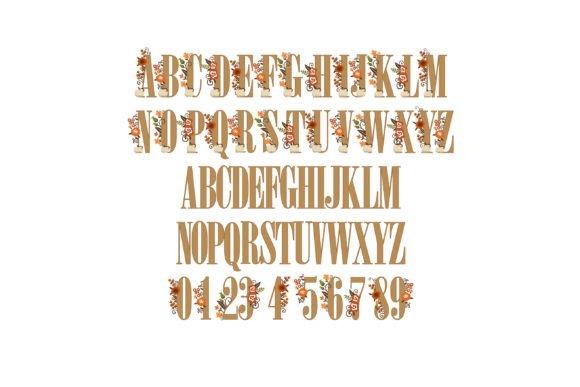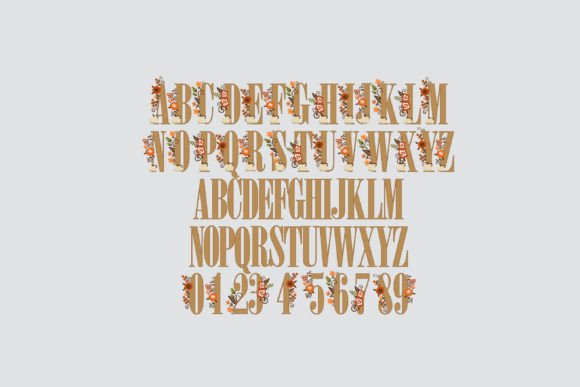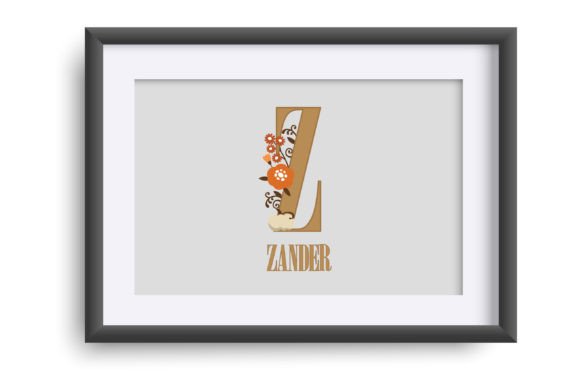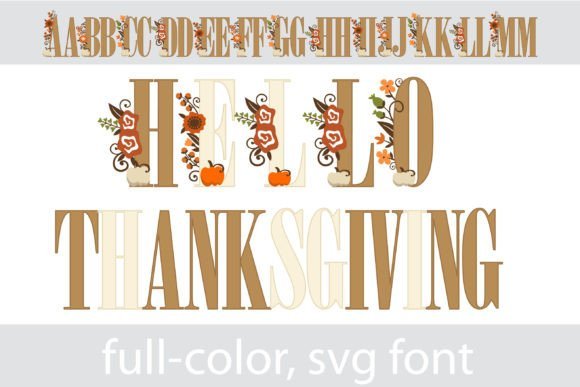
Introduction to Hello Thanksgiving Font
This full-color font features a fun Thanksgiving color palette, florals and pumpkins on a serif font.
Key Features of Hello Thanksgiving Font